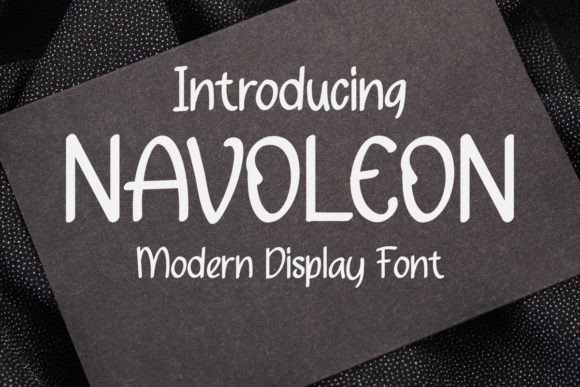
Introducing Navoleon Font - The Epitome of Elegance and Creative Expression
In the realm of digital artistry, the right font can transform your vision into a captivating masterpiece. Meet Navoleon Font, the exquisite creation of IHD.STD, a font family that embodies grace, sophistication, and timeless beauty.
With its delicate, elegant strokes, Navoleon Font is a symphony of artistry, effortlessly adding a touch of charm and refinement to your digital creations. Its well-balanced characters dance across the screen, creating a visual harmony that captivates and inspires.
Unleash the Power of Expression with Navoleon Font
Navoleon Font is more than just a collection of letters; it's an invitation to embark on a creative journey where your imagination knows no bounds. Its versatility extends beyond traditional typography, making it an ideal choice for a myriad of digital designs.
Whether you're crafting eye-catching social media posts, designing captivating digital ads, or creating stunning website headers, Navoleon Font seamlessly adapts to your vision, enhancing your message with a touch of sophistication and elegance.
The Perfect Complement to Your Creative Projects
Navoleon Font's inherent beauty and versatility make it the perfect companion for a wide range of creative endeavors. Its delicate strokes add a touch of elegance to branding and logo designs, while its flowing characters bring life to invitations, greeting cards, and wedding stationery.
But Navoleon Font's magic truly shines in the world of digital advertising. Its ability to capture attention and convey messages with clarity and impact makes it an invaluable asset for creating digital ads that resonate with your audience.
Dive into a World of Creative Possibilities
With Navoleon Font as your creative ally, you can unlock a world of endless possibilities. Its elegant curves and graceful lines transform ordinary text into captivating headlines, while its balanced proportions ensure readability and clarity.
Whether you're a seasoned designer seeking to elevate your work or a budding entrepreneur looking to make a lasting impression, Navoleon Font is the perfect choice to elevate your digital presence and leave a lasting impression.
Embrace the Beauty of Navoleon Font Today!
Don't let this opportunity pass you by. Experience the magic of Navoleon Font and witness the transformation of your creative projects into captivating masterpieces. Its delicate strokes, elegant curves, and versatility will inspire you to reach new heights of creativity.
Add Navoleon Font to your design arsenal today and embark on a creative journey that knows no bounds. Let your imagination soar and create digital masterpieces that leave a lasting impression on your audience.